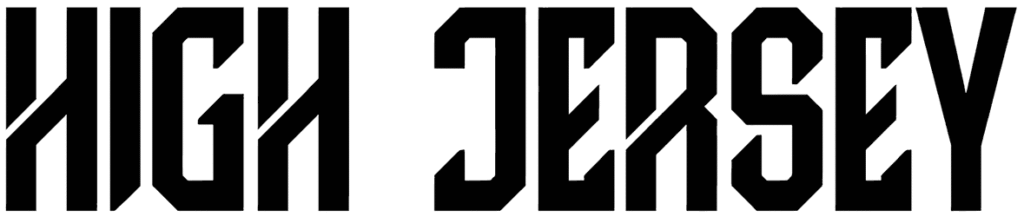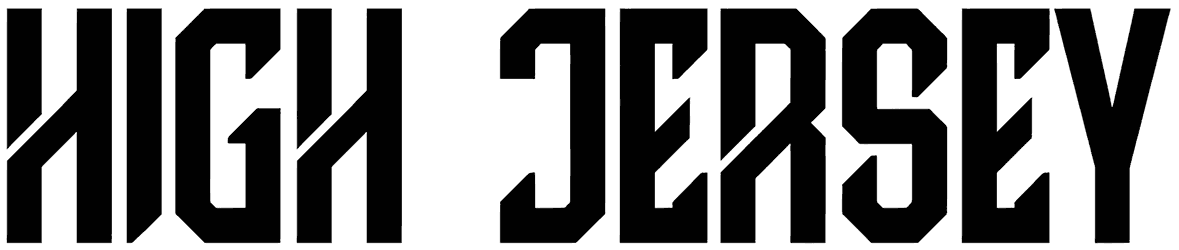
High Jersey Font
It’s as simple as this: when you get a sports graphic design to create, you need a sports font too. High Jersey is one of those fonts that, with its bold and steady look, gives you some excitement and is suitable for sports flyers, posters, advertisements, logos, and branding.
This typeface offers you two styles and no lowercase; instead, you get two designs for the uppercase. Prepare yourself to get your hands on a one-of-a-kind source that supports your every need.